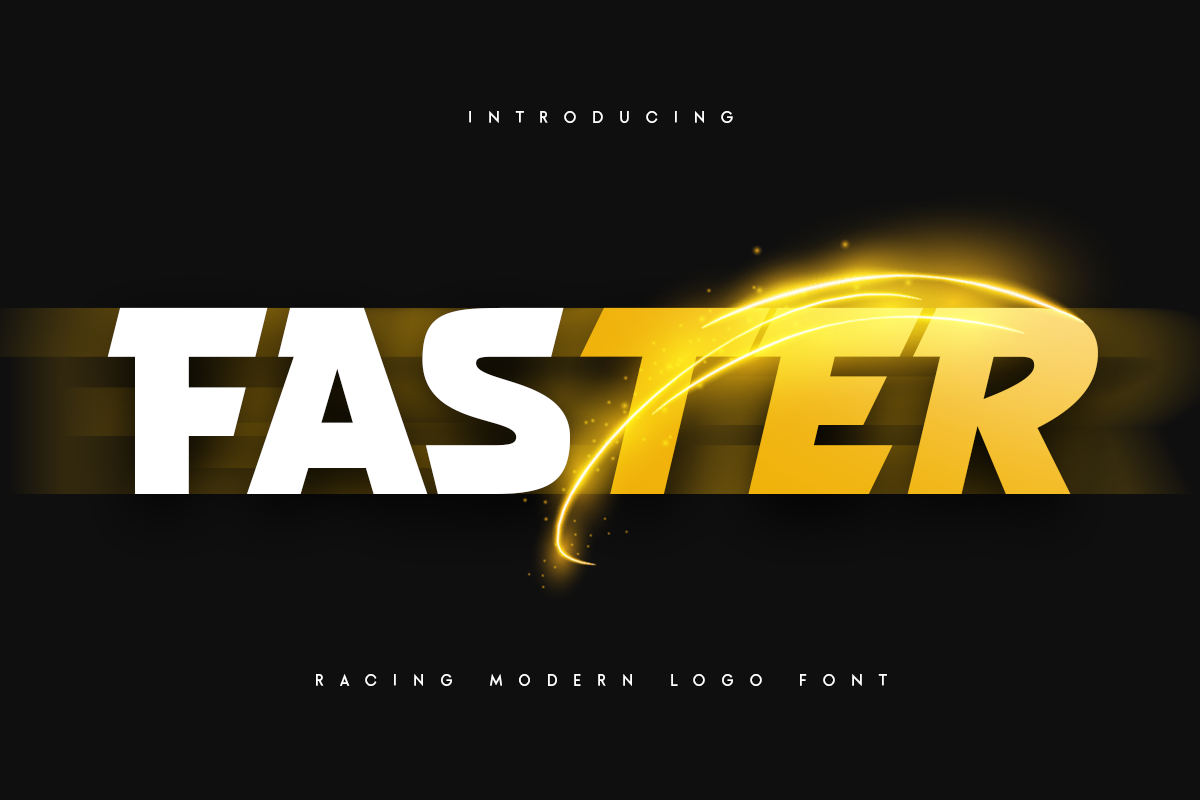
Faster - Racing Modern Logo Font
Accelerate your designs with Faster - a bold racing font built for high-speed branding and sports projects. This modern sans serif typeface delivers powerful, unique characters perfect for racing events, sports teams, and competitive branding. The bold letterforms create maximum impact while maintaining excellent legibility across all applications. Faster excels in sport branding projects, jersey designs, logos, social media posts, advertisements, product packaging, labels, watermarks, and any p...